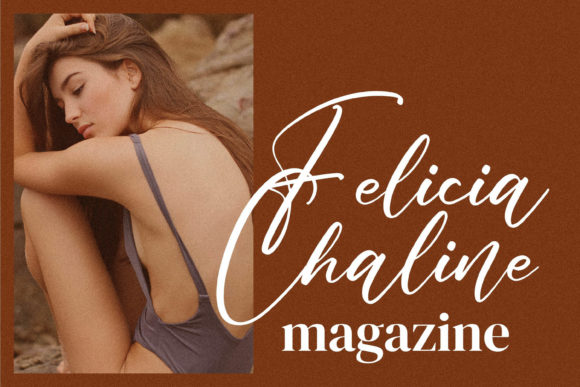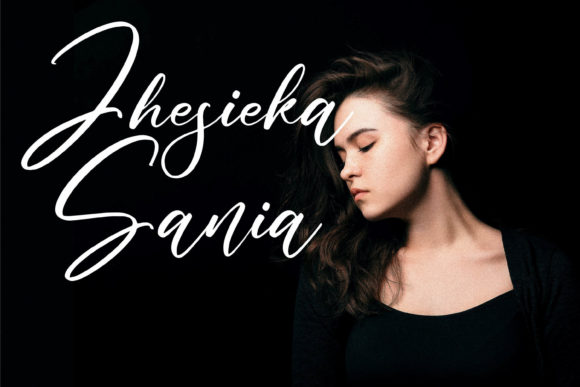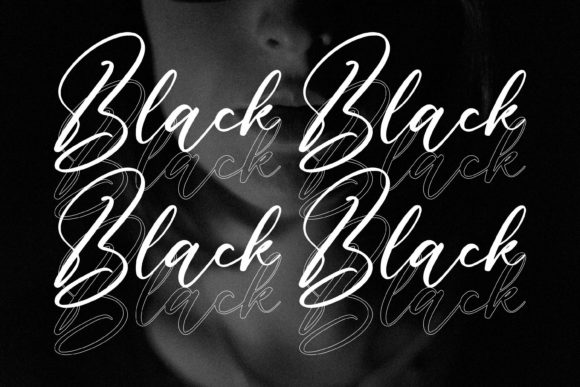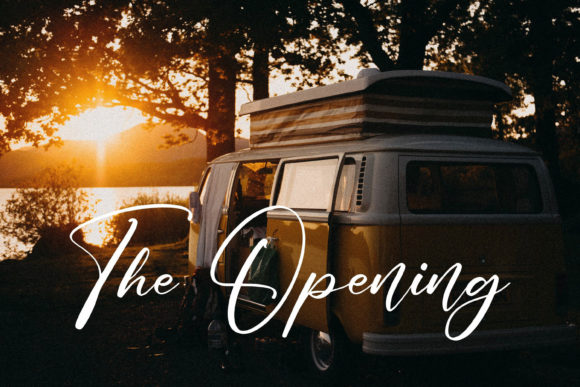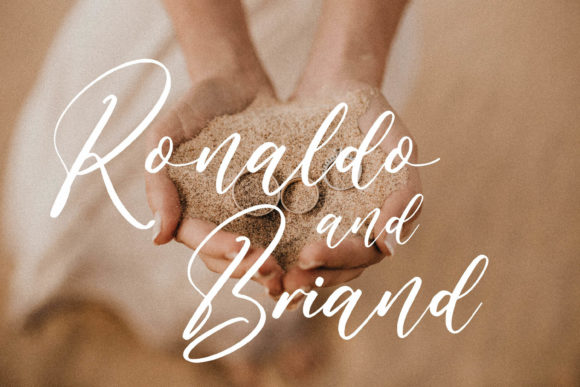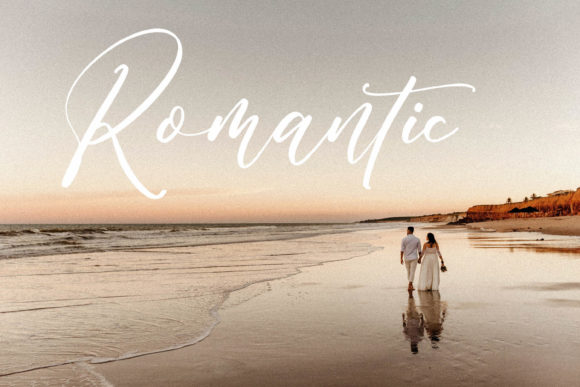
Introducing Belizka Font: Elevate Your Designs with Elegance and Class
In the world of typography, a font can make or break the aesthetic of a design. For those seeking a touch of elegance and sophistication, Belizka Font is an exquisite choice. This lovely and delicate script font is specifically crafted for designers, crafters, and anyone looking to add a refreshing look to their creations.
The Beauty of Belizka Font
Belizka Font is a masterpiece of typographic artistry. Its delicate strokes and curves exude a sense of refinement, making it perfect for projects that demand a high level of sophistication. Whether you’re working on a branding campaign, a wedding invitation, or a fashion magazine, Belizka Font is sure to impress.
Key Features of Belizka Font
- Delicate Script Style: Belizka Font boasts a beautiful, flowing script style that adds a touch of elegance to any design.
- Highly Legible: Despite its delicate nature, Belizka Font is highly legible, making it suitable for both headings and body text.
- Versatile: This font is versatile and can be used in a variety of design projects, from digital media to print materials.
- Easy to Pair: Belizka Font pairs well with a range of other fonts, allowing designers to create stunning font combinations.
Who Can Benefit from Belizka Font?
Belizka Font is an excellent choice for a wide range of designers and crafters, including:
- Graphic Designers: Those working on branding campaigns, logos, and marketing materials will love the elegance and sophistication Belizka Font brings.
- Wedding Planners and Stylists: Belizka Font is perfect for wedding invitations, save-the-date cards, and other wedding-related materials.
- Fashion Designers and Stylists: This font is ideal for fashion magazines, lookbooks, and branding materials.
- Stationery and Journal Designers: Belizka Font adds a touch of refinement to journals, planners, and stationery sets.
Tips for Using Belizka Font
To get the most out of Belizka Font, consider the following tips:
- Use it as a Headline Font: Belizka Font is perfect for headlines and titles, where its elegance and sophistication can shine.
- Pair it with a Sans-Serif Font: Combine Belizka Font with a clean sans-serif font for a beautiful contrast.
- Experiment with Colors: Belizka Font looks stunning in a range of colors, from soft pastels to rich jewel tones.
Belizka Font is a gorgeous and delicate script font that brings elegance and class to any design. Its versatility, legibility, and beauty make it an excellent choice for designers and crafters seeking to elevate their projects. Whether you’re working on a branding campaign, a wedding invitation, or a fashion magazine, Belizka Font is sure to impress.